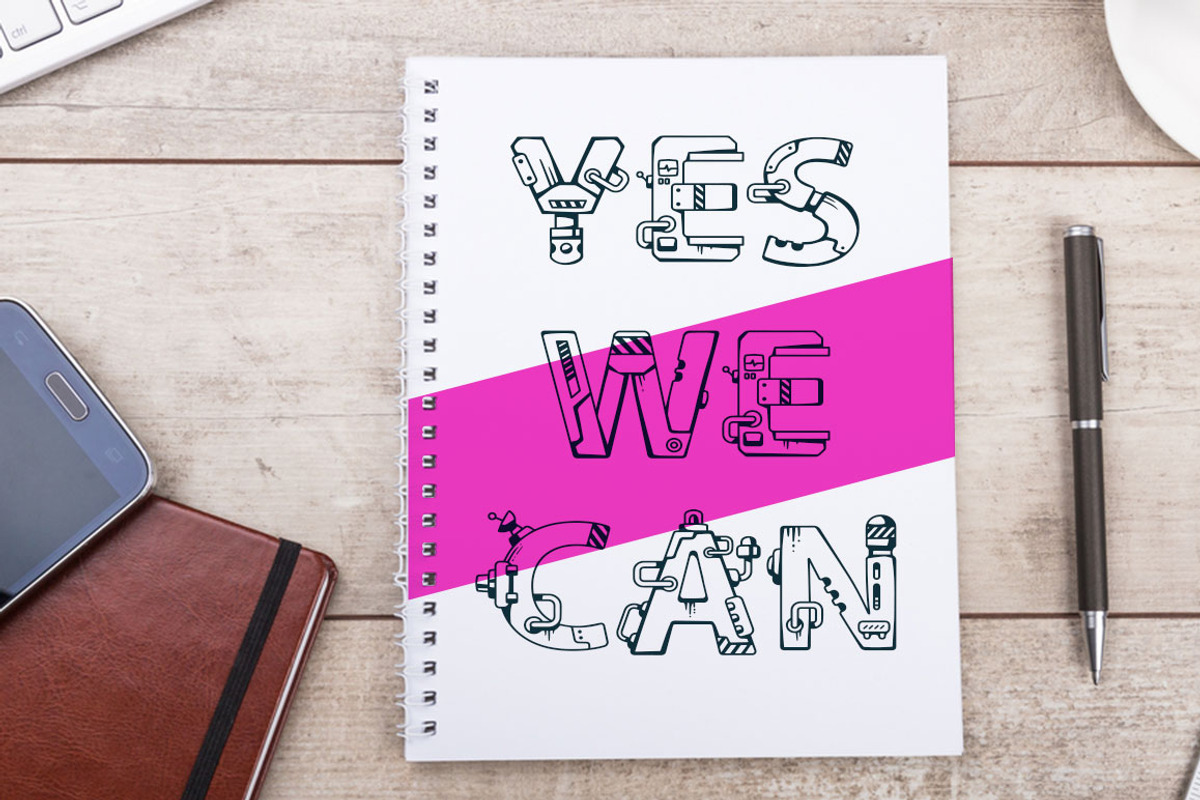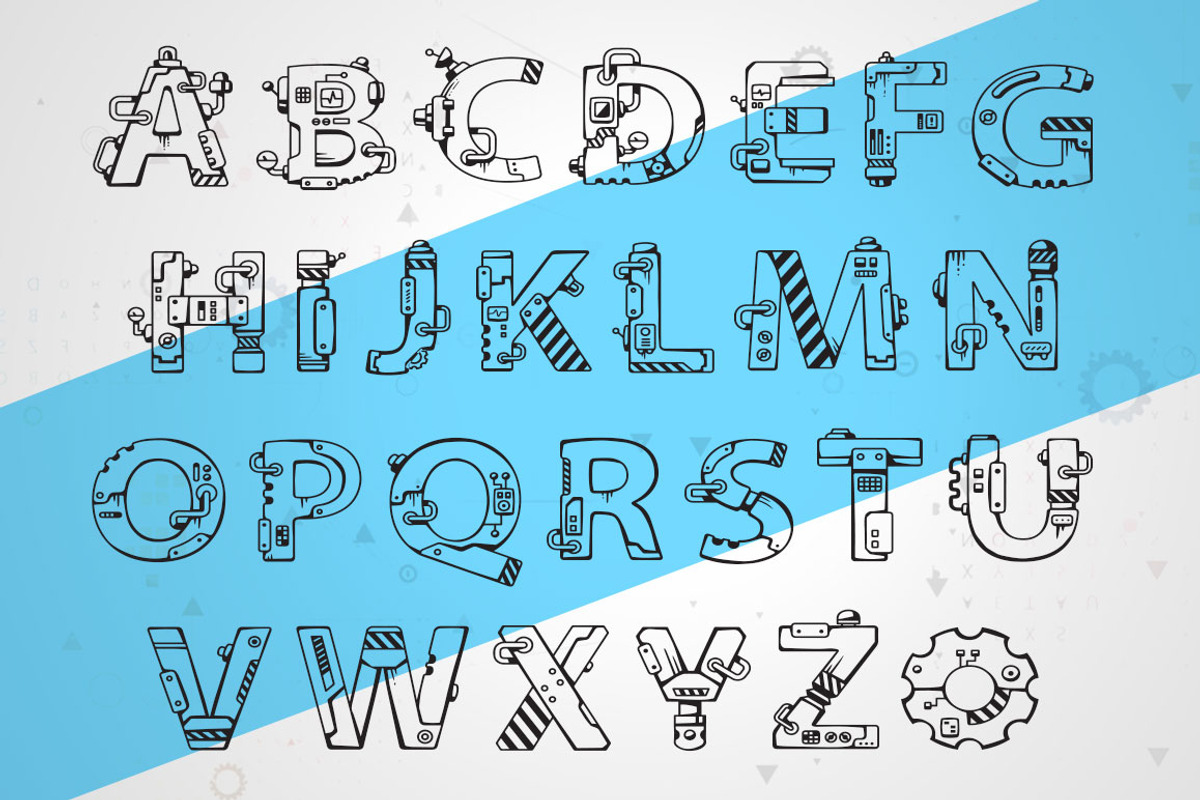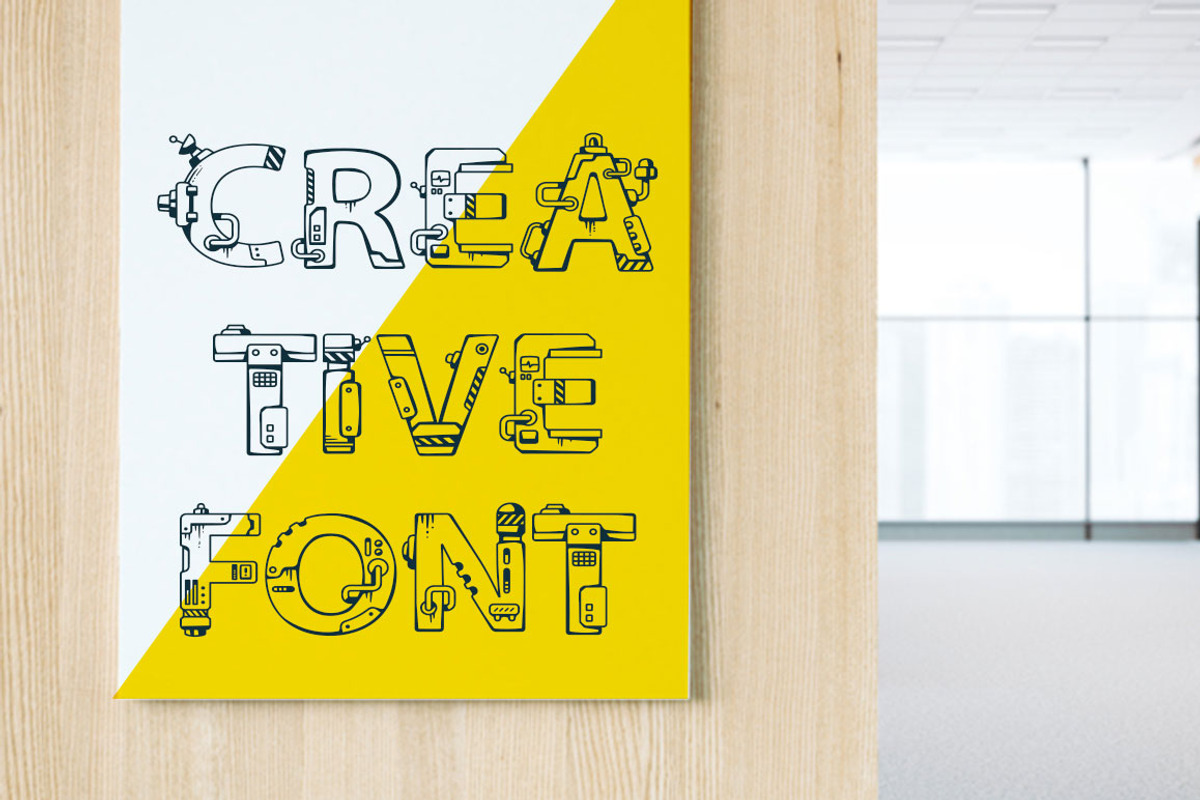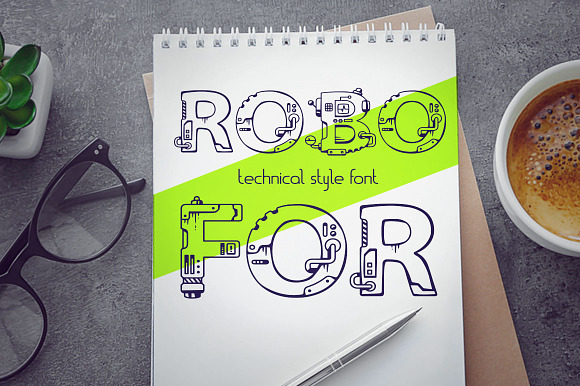
Roboformechanical engineering font
Robofor is a very unusual font for headings consisting only of capital letters of the Latin alphabet, the design is made in the style of mechanisms. This font is good to use in combination with a thin font for creating different kinds of designs.
Why Roboformechanical engineering font is worth a look
Roboformechanical engineering font by wowomnom fits naturally into Branding, posters, packaging, typography.